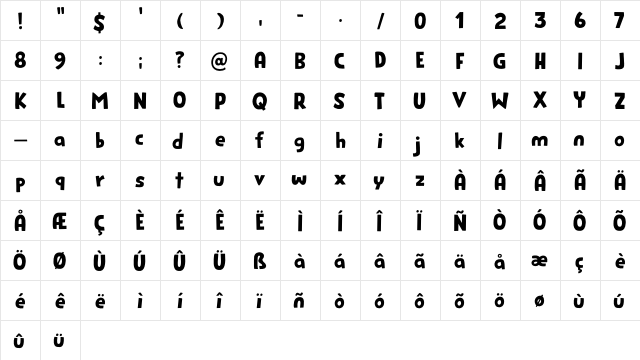
Genki Desu DEMO Regular
| Foundry | David Kerkhoff |
| Designer | David Kerkhoff |
Design Context for Genki Desu DEMO Typeface
Genki Desu DEMO is a composed and adaptable typeface that performs quietly and consistently across a wide range of design contexts.